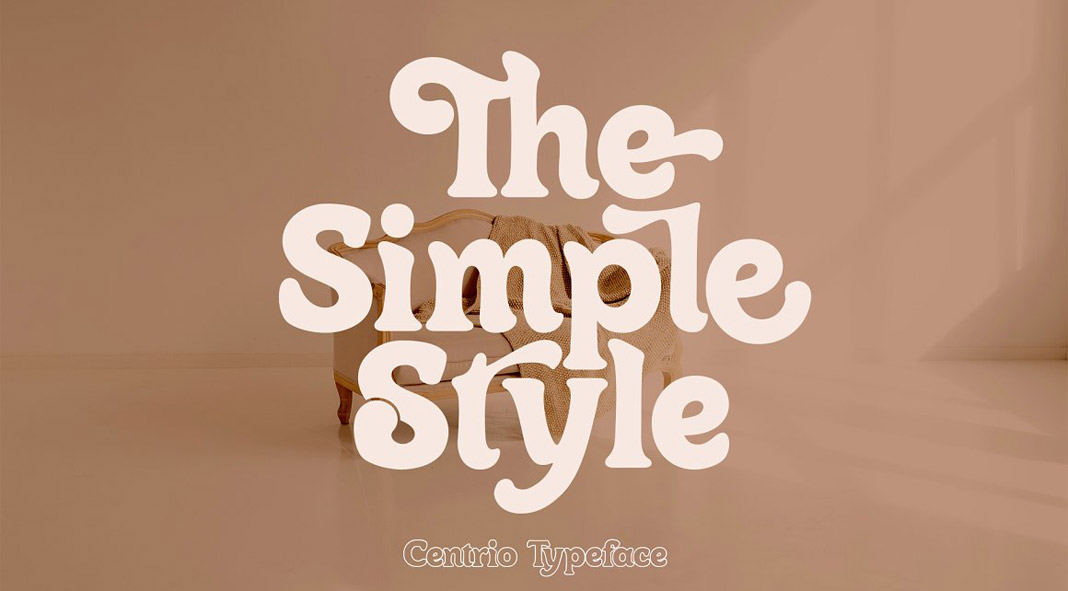
Say hello to Centrio, a vintage-inspired typeface that comes in four styles.
Designed and published by Zulfikar, aka Joelmaker, Centrio is a beautiful retro font for various purposes such as magazine titles, posters, logos, t-shirt designs, book covers, templates, social media, greeting cards, quotes, etc. The Centrio font family consists of four styles including Regular, Italic, Outline, and Outline-Italic. Centrio is packed with plenty of stylish ligatures that are accessible in programs such as Adobe Photoshop, InDesign, or Illustrator. Just click on one of the following links to learn more about this fun retro font.